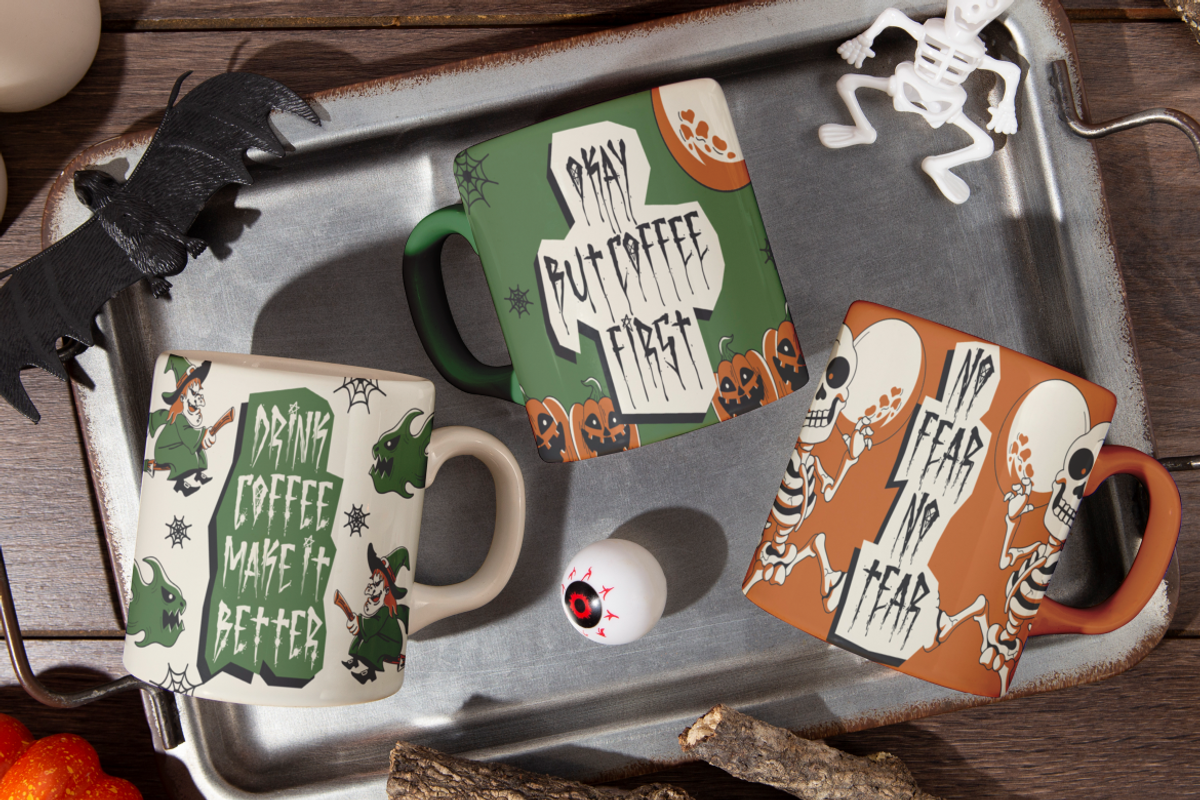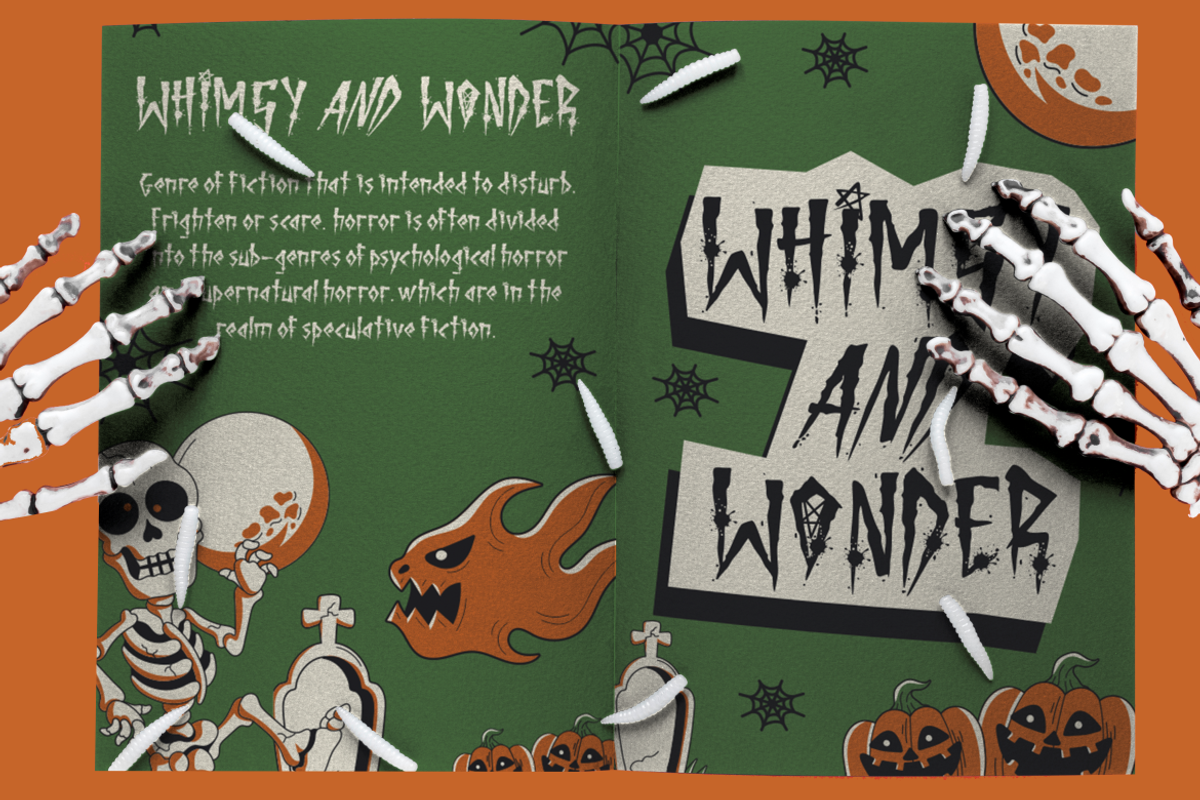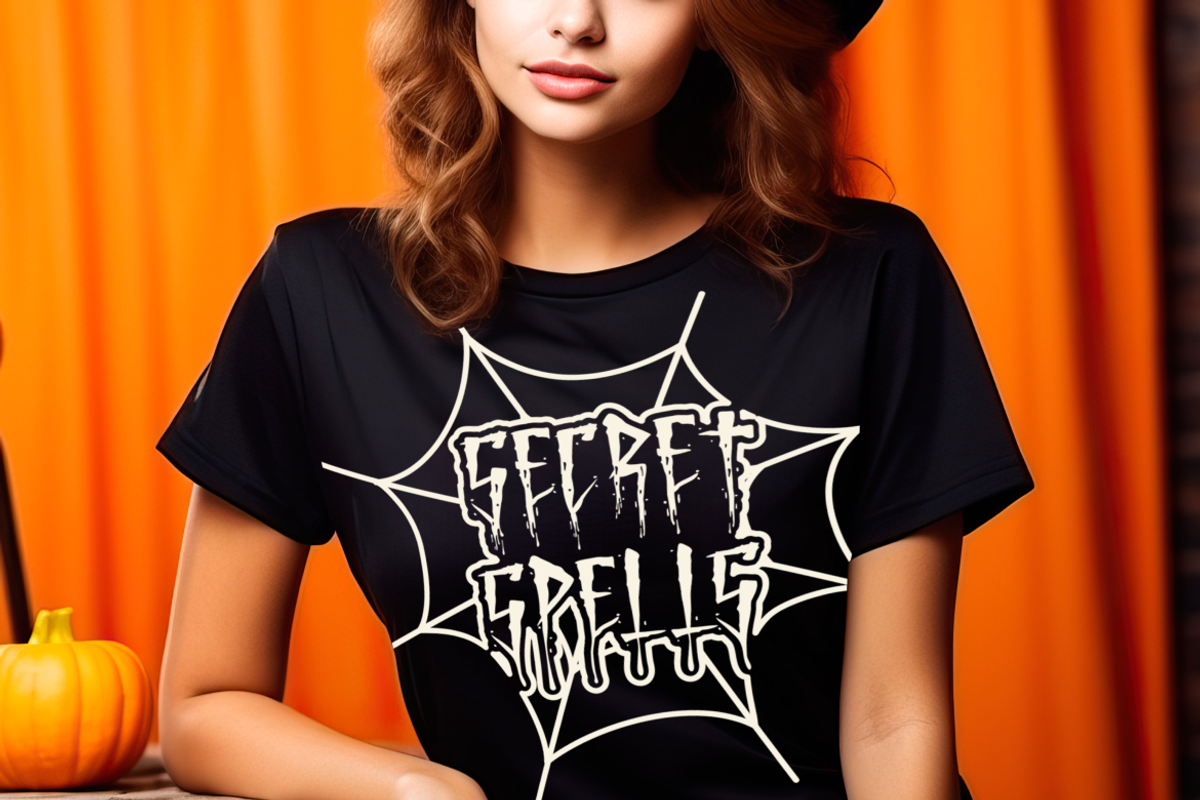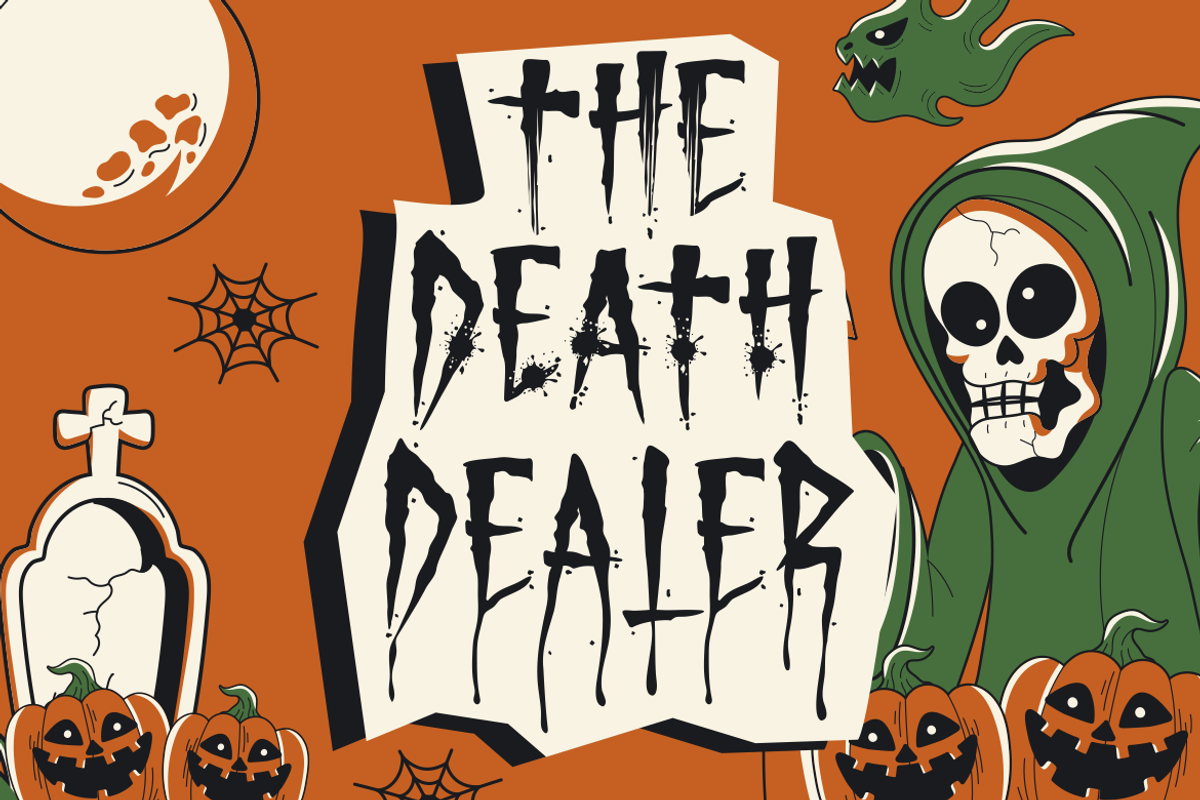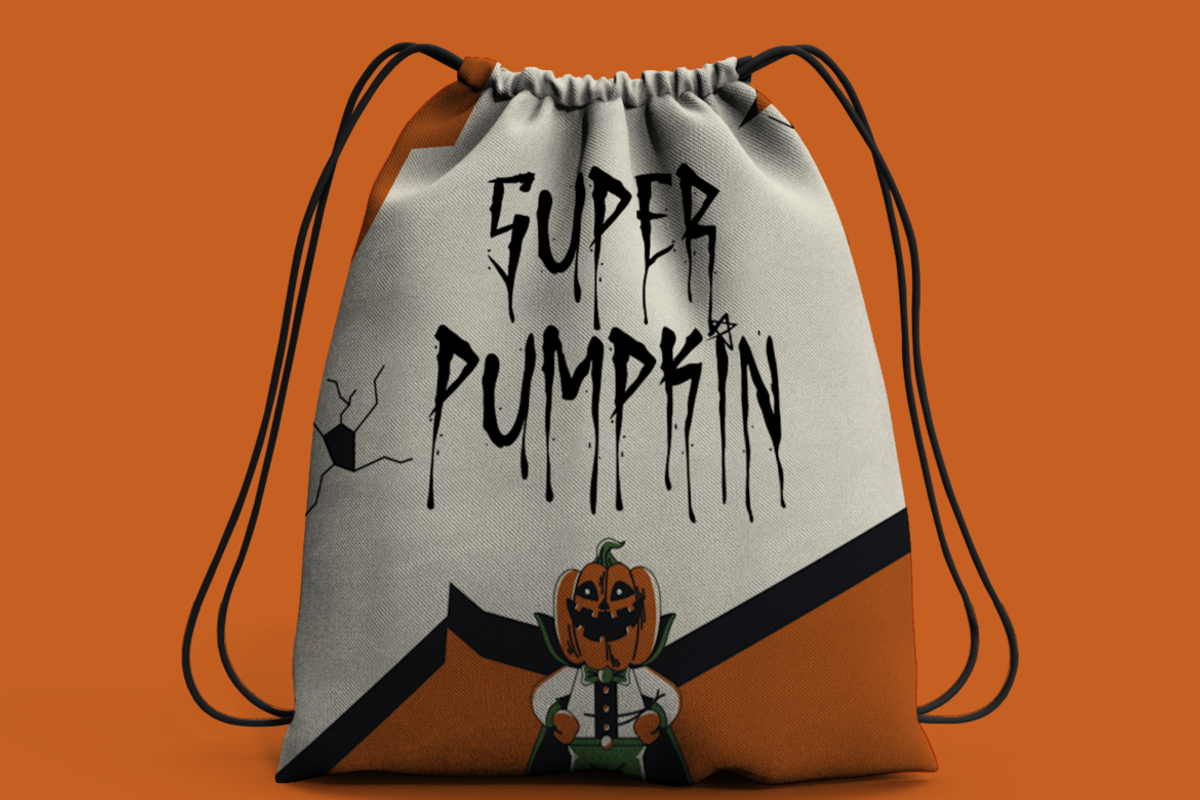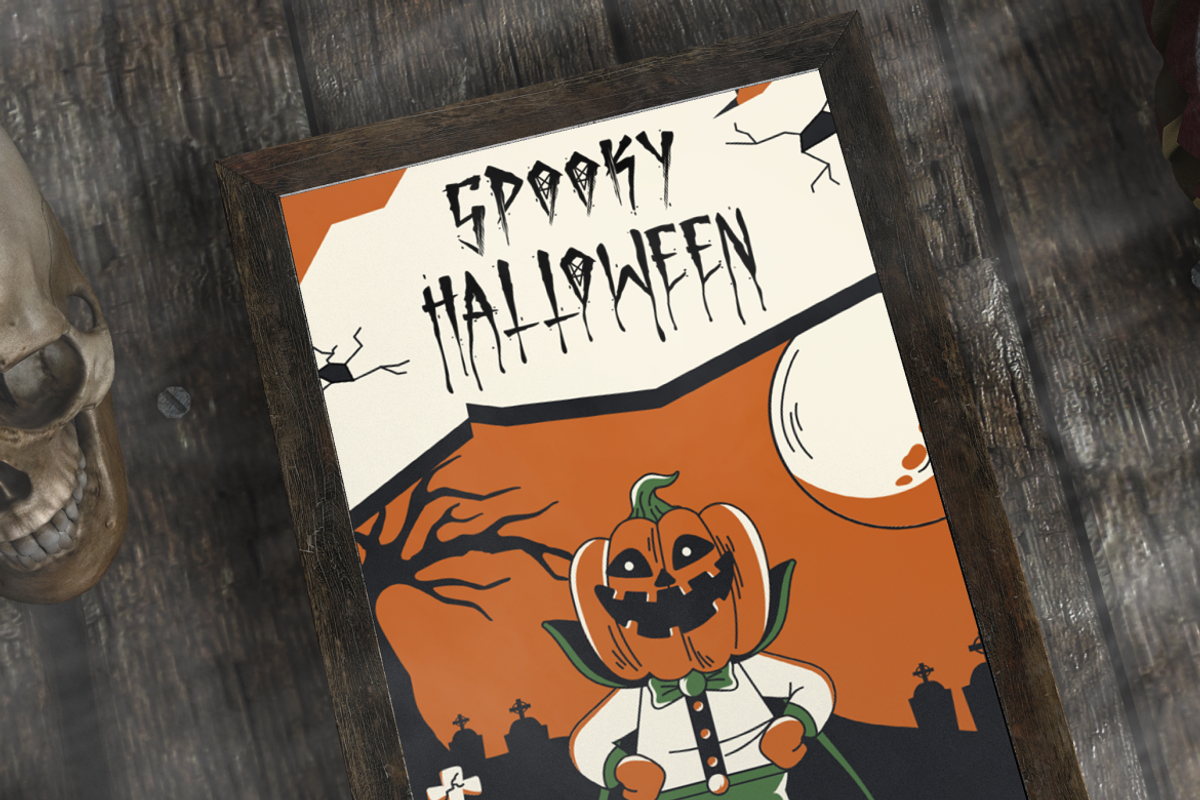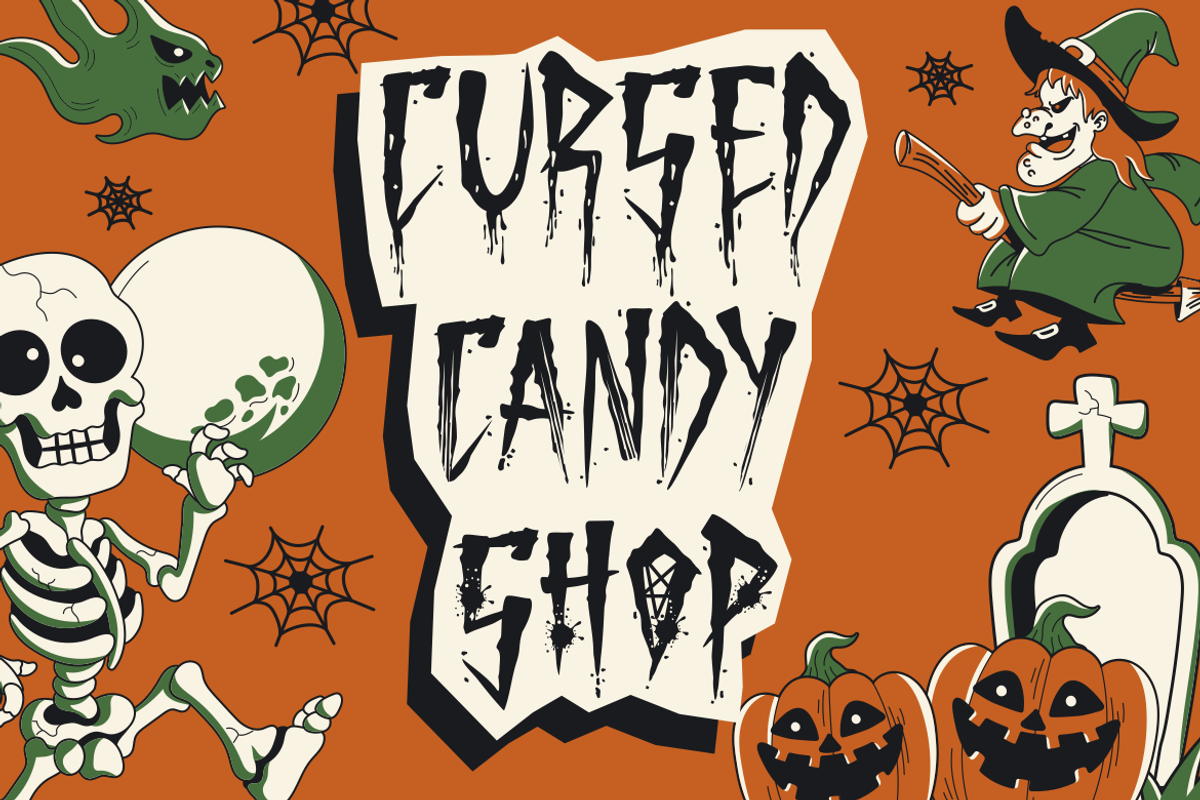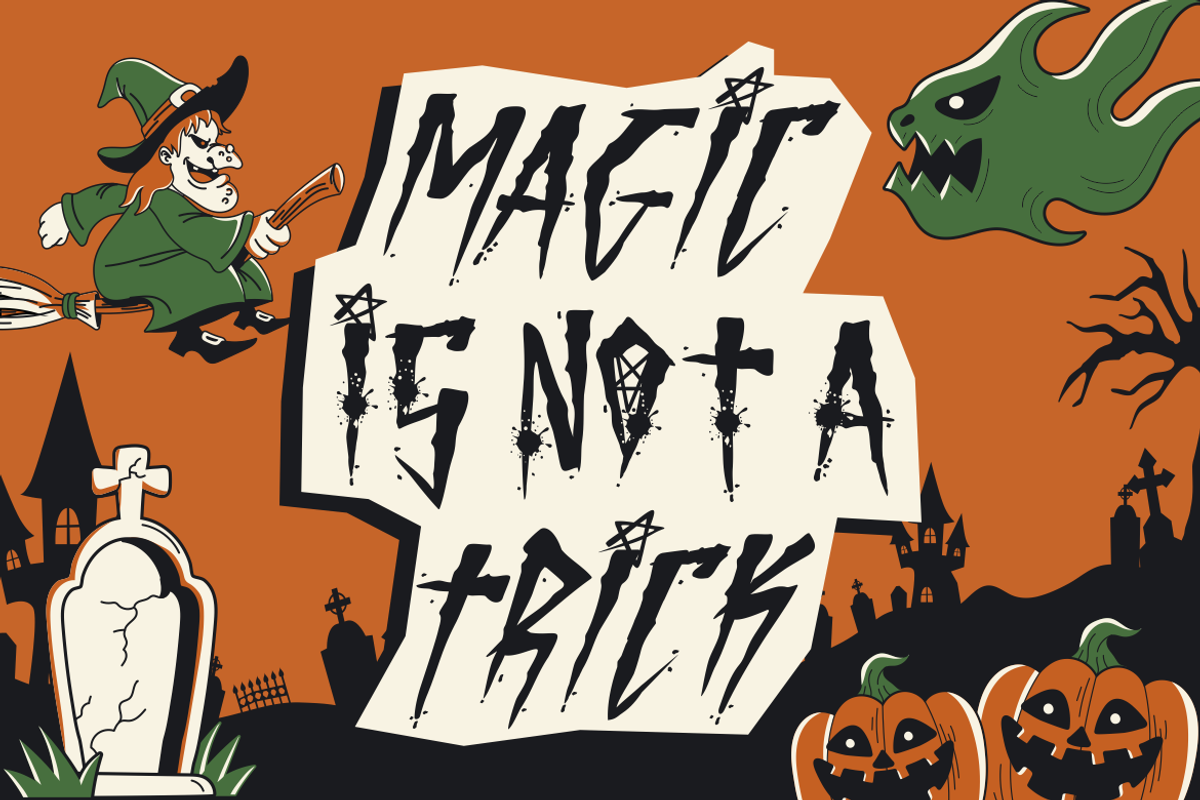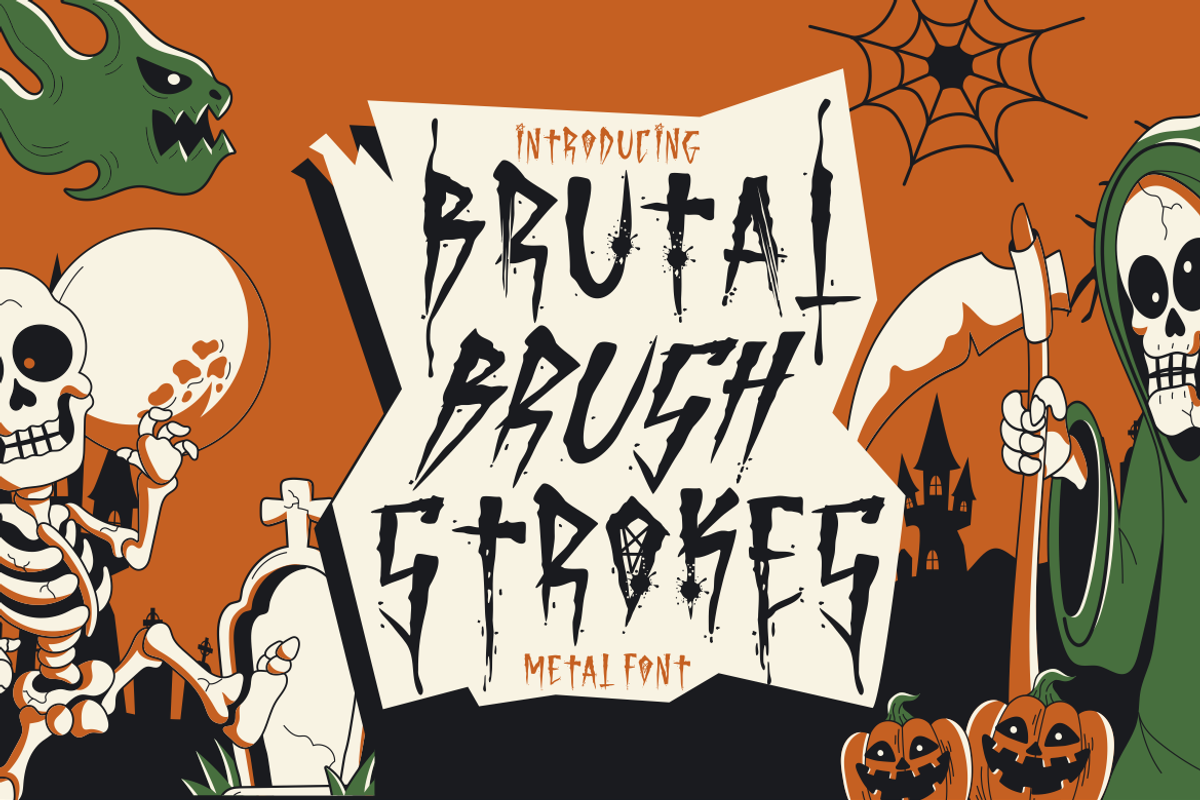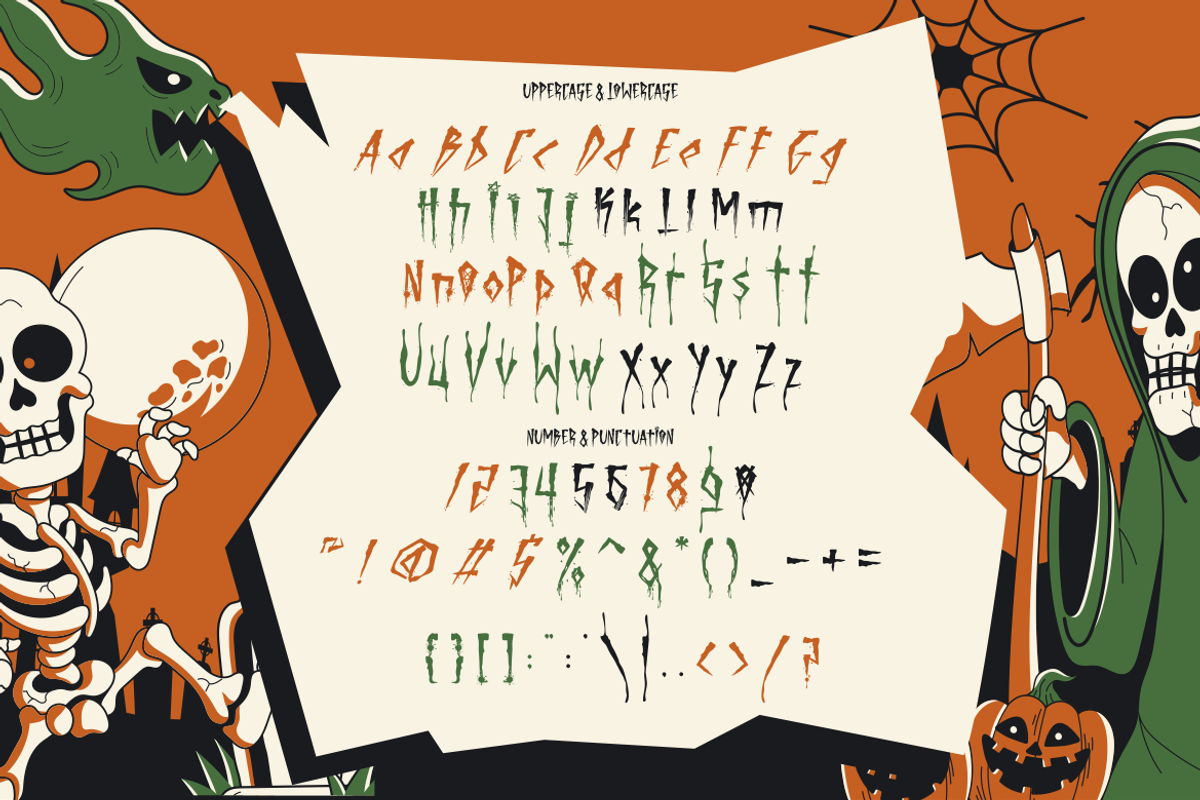
Brutal Brushstrokes - Metal Font
Step into the realm of the bold and the fearless with Brutal Brushstrokes - Metal Font, a typeface that screams intensity and power. Crafted for those who dare to stand out, this font is the epitome of strength, with its rough textures and metal-inspired design that evoke the raw energy of a live concert. The characters are imbued with the spirit of horror and death metal, making them perfect for projects that require a touch of the dark and the dramatic.
Whether you’re branding a band’s logo, crafting an edgy invitation, or setting the stage for a Halloween event, Brutal Brushstrokes delivers a visual punch that’s as unforgettable as it is fierce. This font isn’t just about making a statement; it’s about creating an experience. It’s bold enough for business yet quirky enough for crafting, versatile in its application but singular in its impact. With Brutal Brushstrokes, your designs will not whisper; they will roar.